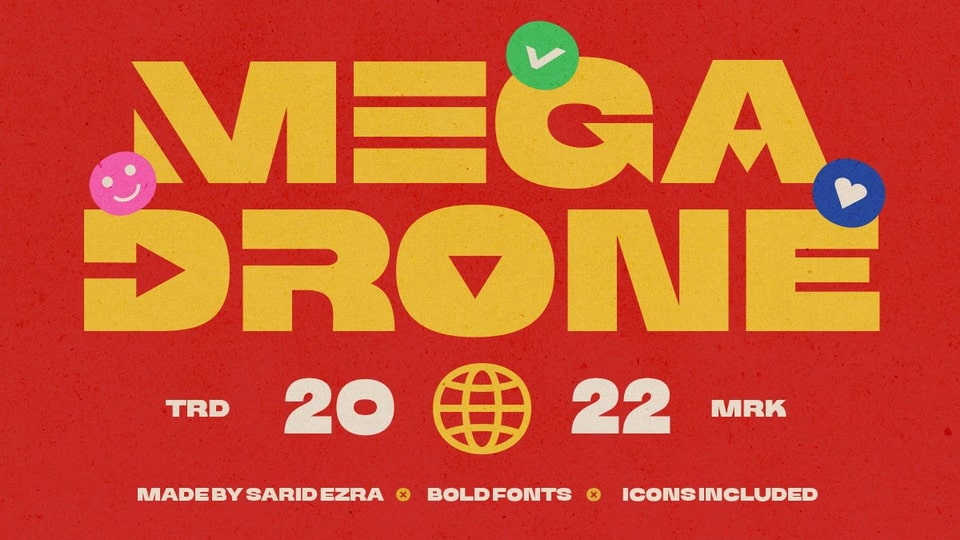
Download Mega Drone font, a black and fat display typeface with unique lowercase. You can use Mega Drone font for many project that require strong and bold vibes.